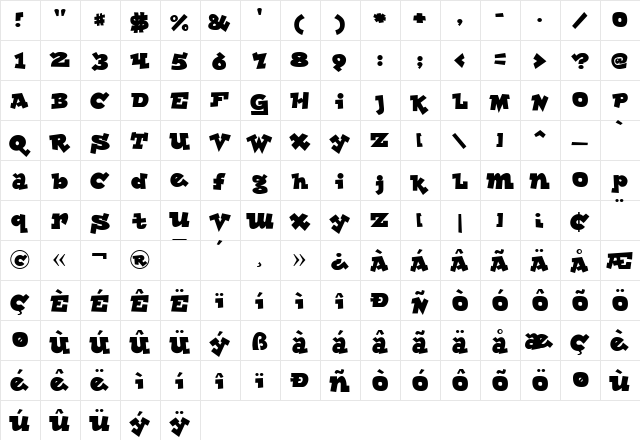
Lockergnome Regular Font Preview
Lockergnome Regular
Design Context for Lockergnome Typeface
Lockergnome is a composed and adaptable typeface that performs quietly and consistently across a wide range of design contexts.